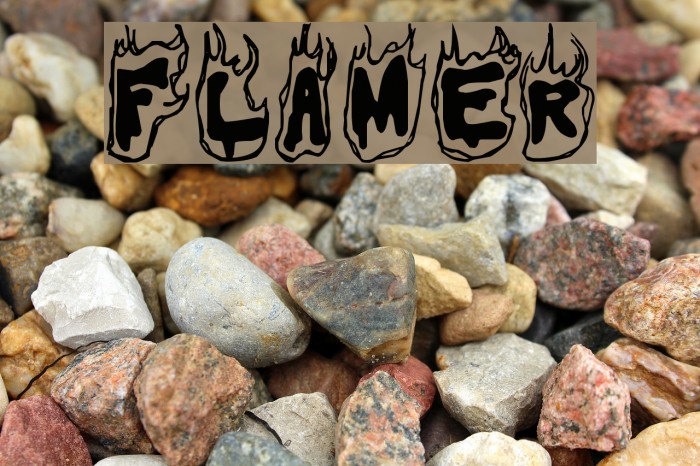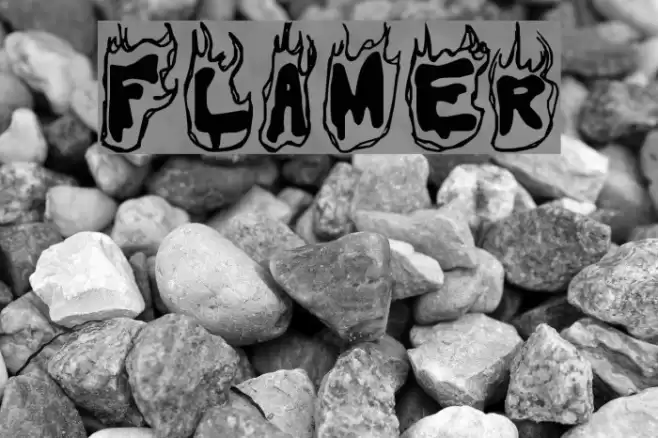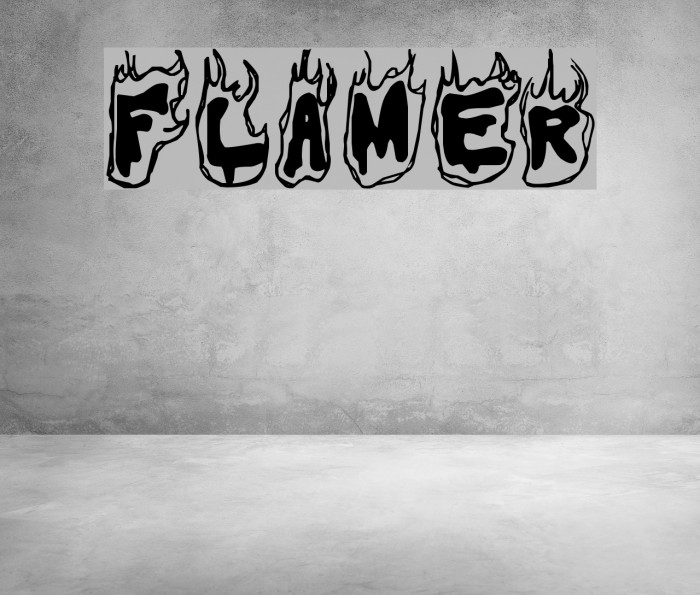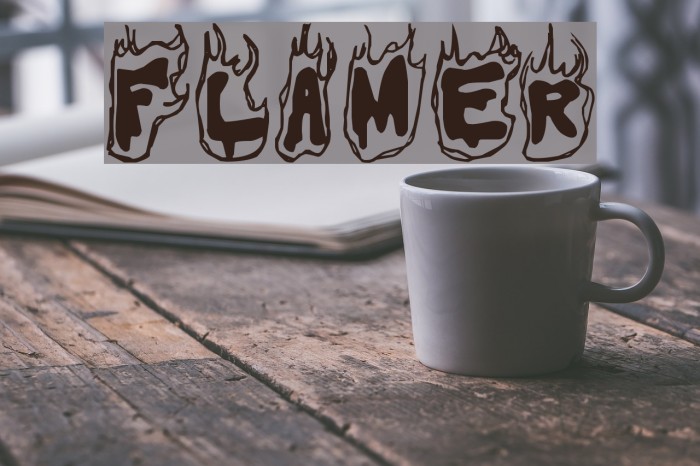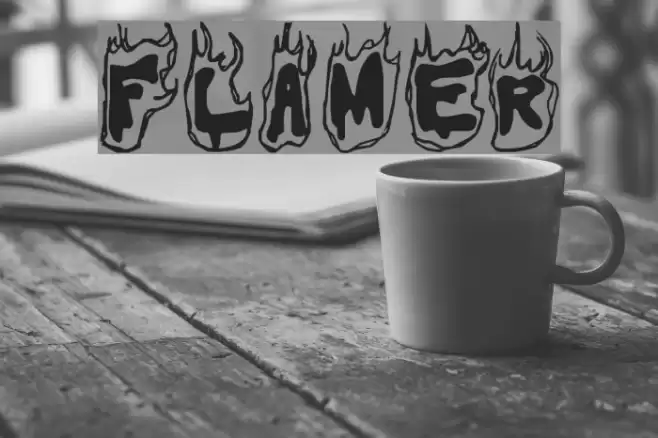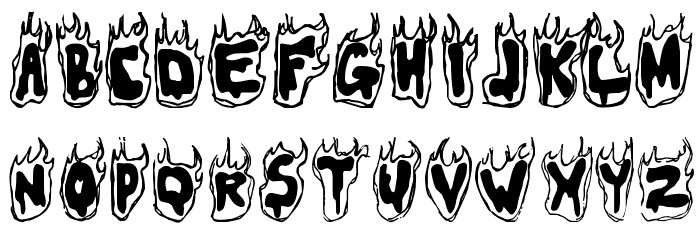
Flamer Font
| Projetos propostos | Ideal for projects requiring a fiery or energetic theme, such as event posters, music album covers, or branding for extreme sports. |